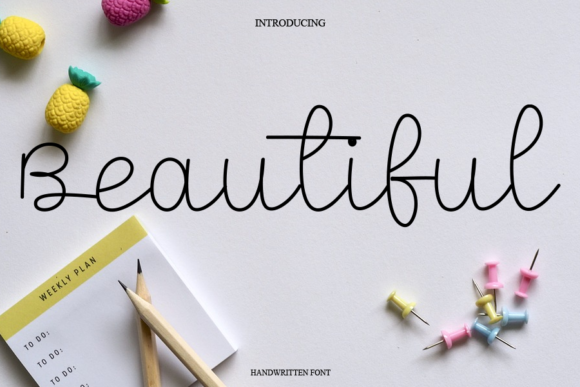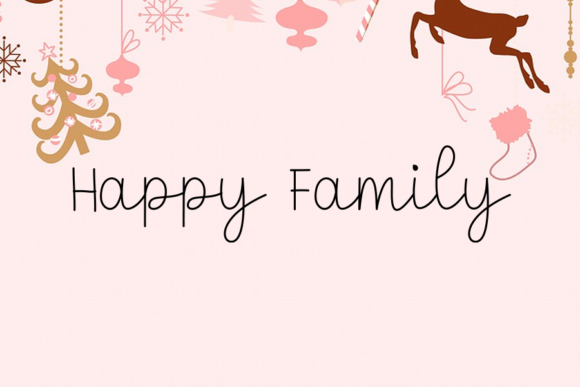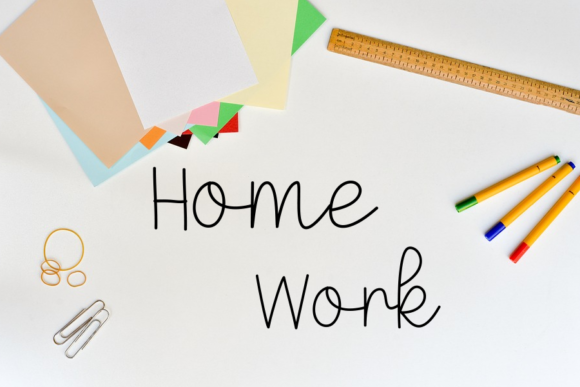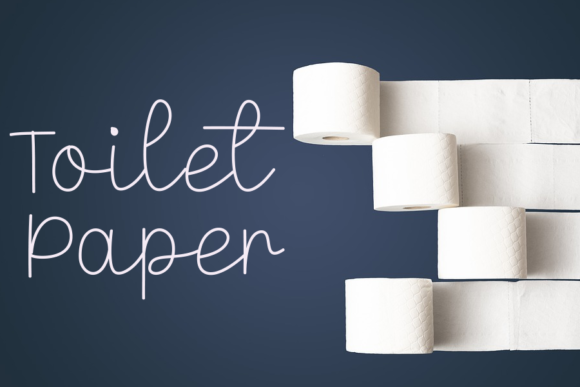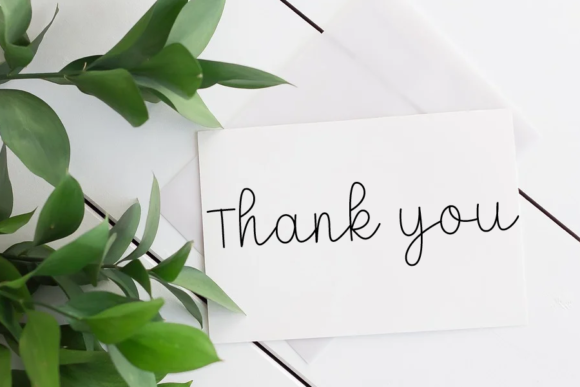
Beautiful Font
About Beautiful Font
Beautiful is a dainty, genuine and cursive handwritten font. This gentle font will look gorgeous on a variety of design ideas. It will add a joyful and romantic touch to each of your projects!